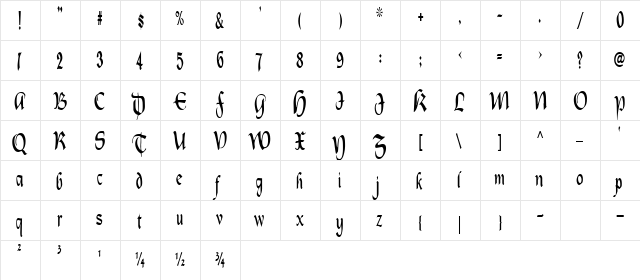
OldCountryCondensed Regular
Design Context for OldCountryCondensed Typeface
OldCountryCondensed takes a measured approach to typography — its balanced proportions and neutral character make it a reliable workhorse for both digital and print work. Its narrow stance lets it pack a punch even in space-constrained designs.